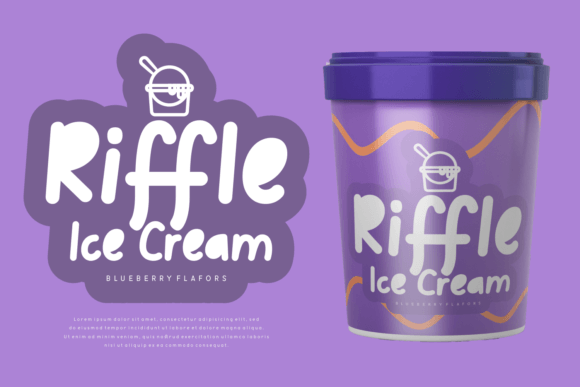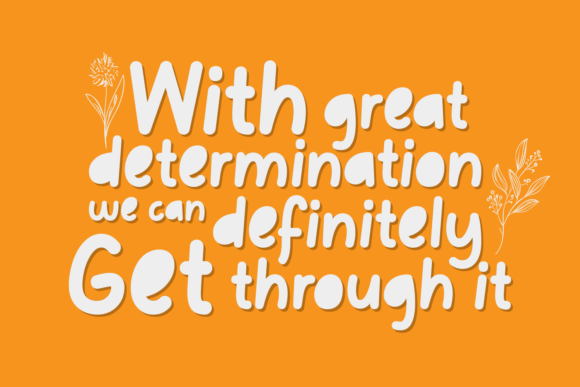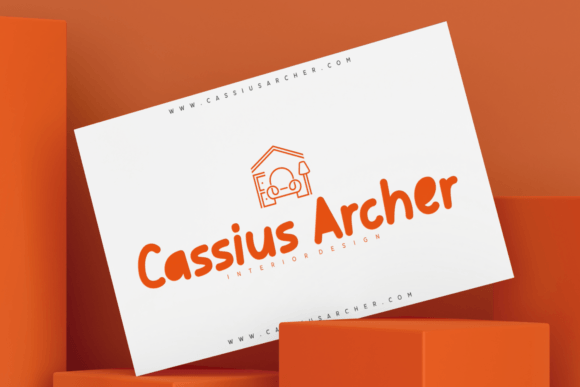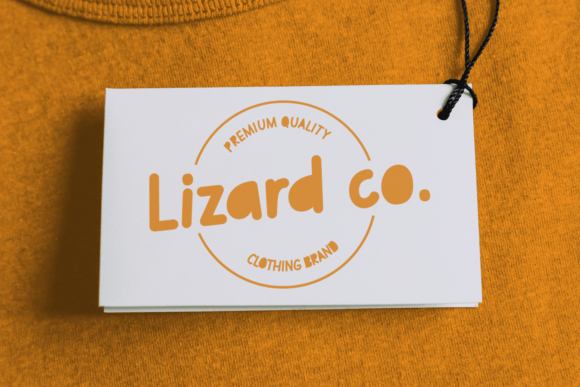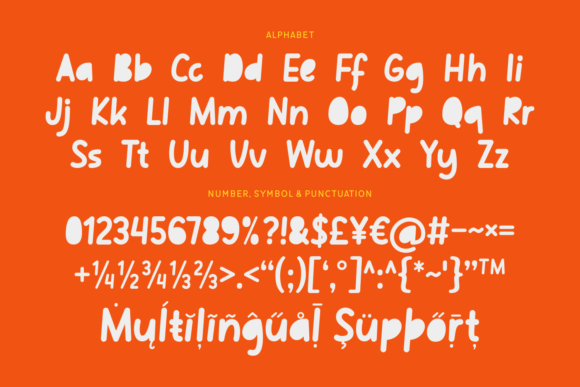
Introduction to Gae Koffa Font
Remember that moment when you stumbled upon the perfect font to elevate your creative project? It’s like finding a missing puzzle piece that suddenly brings your design to life. For many designers, this moment is a game-changer, and we’re excited to share with you a new font that’s sure to make your designs stand out – the Gae Koffa Font.
This unique display font is perfect for designers looking to add a touch of whimsy and personality to their work. With its cute and playful style, the Gae Koffa Font looks amazing on posters, cards, fabric prints, and product labels. And the best part? It’s free to download, making it an invaluable resource for any creative project.
Whether you’re working on a high-quality design for a client or just want to experiment with a new style, the Gae Koffa Font is a valuable addition to your design arsenal. Plus, with its transparent background, you can easily use it on any background image or design without worrying about distractions.
Key Features of Gae Koffa Font
- Unique, hand-drawn design making it perfect for creative projects requiring a personal touch
- Includes multiple font styles and weights, offering versatility for different design needs
- Designed with a bold, expressive aesthetic, ideal for use in headings, titles, and other prominent design elements
Honest Review: Gae Koffa Font
As a designer, I’m always on the lookout for high-quality design resources to elevate my creative projects. The Gae Koffa Font is one such resource that caught my attention. I decided to give it a try and here’s my honest review.
- ✨ High-quality font with a unique, modern design that adds a touch of sophistication to any project.
- ⚠️ Limited character set, which may not be suitable for extensive use in larger projects.
Overall, I’m impressed with the Gae Koffa Font’s design and functionality. While it may have some limitations, its unique style and high-quality design make it a valuable addition to any designer’s creative toolkit.
Tips for Getting the Most Out of the Gae Koffa Font
Use the Gae Koffa Font in combination with a transparent background to create a unique and eye-catching design. Experiment with different font sizes and styles to add visual interest to your project.
The Gae Koffa Font is a versatile design resource that can be used in a variety of creative projects, including logos, business cards, and marketing materials. Its high-quality design and transparent background make it an ideal choice for designers who want to create professional-looking designs with a personal touch.